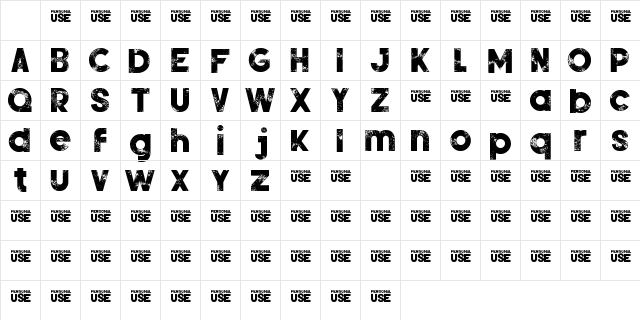
Complete Silver Forte Grunge Grunge glyph index. Displaying only characters natively supported by Silver Forte Grunge Grunge font.
Silver Forte Grunge embraces imperfection - its rough, textured character adds raw authenticity to designs that want to feel lived-in and unconventional.
Pro Tip: Use Silver Forte Grunge at larger sizes where the texture and irregularity of each letterform can be clearly seen - it loses its character at small sizes.